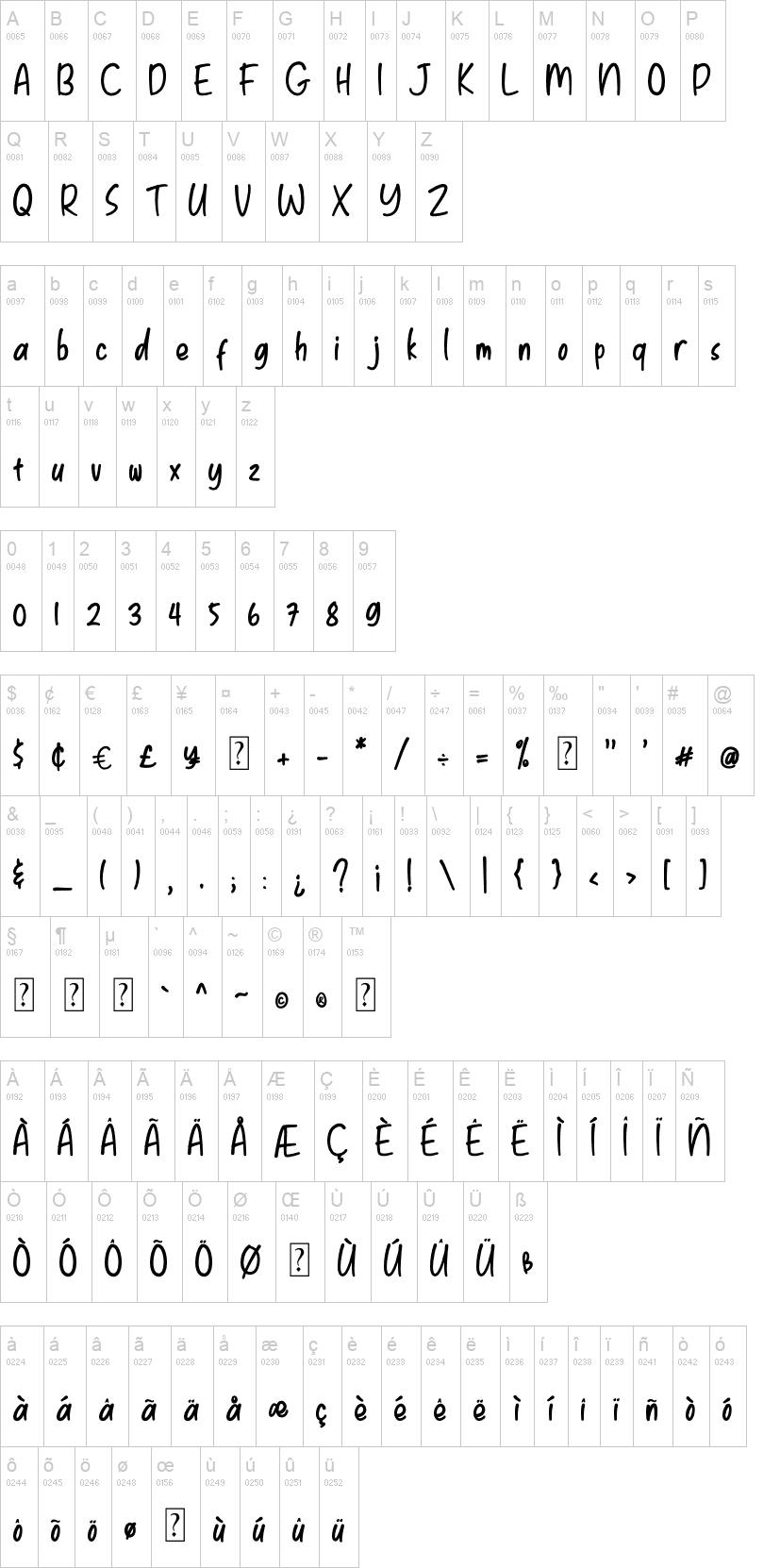
Note of the authorKidie Monster is a sweet and approachable display font. Friendly and playful, this font will make any child fall in love with it! Add it to your school projects and notice how its popularity grows in an instant!